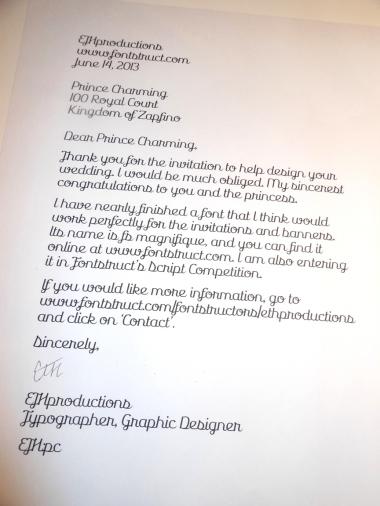
Greeeat entry! IMHO, some glyphs can receive an improvement (like the "r", or the "s"), but I love it all!
Wow ETH, this is just simply amazing!!! Poor Mr.Meek will have such a tough time finding out who wins this competition. Awesome font, I am forever in awe of your epic fonts!
Nice! - although the 'r' is a bit of a problem. Still, 10/10
I thought this was a modular site... Great job! 10/10
So smooth. 10/10
This is true beauty. 10/10.
Great, it's so elegant, it's hard to believe it was made as a modular font.
You've reached beate's level. Congratulations :) I like how fi forms a natural ligature.
I've updated the r and s; I think they're better now.
Very nice script font. It ticks all boxes. 10/10
So loopy smooth...like ink flowing in a very controlled script. (y)
Glad to see you working on the caps here ETH. I think you should add more punctuation like ?,! and accents.
@thalamic: Yeah, if only my handwriting looked like that. :-)
Cette typo est "Magnifique"
very round very cool, I like it
Wow...the competition's almost over? It's been a very quick three weeks. Anyway, I've finished the caps, and numbers and punctuation are in mind.
Lol, nice sample letter :)
This is one of the most magnificent script fonts I've seen. Very beautiful, readable, and overall awesome!!! 10/10 :)
@winty5: Nothing like seeing your 'letters' in real life! :-)
the letter after Ÿ (or possibly Ü, I'm not sure) looks a lot glitched, like a lot. Might wanna fix it.
Unless it's supposed to like like that, but if it isn't, you probally want to change it.
I love this